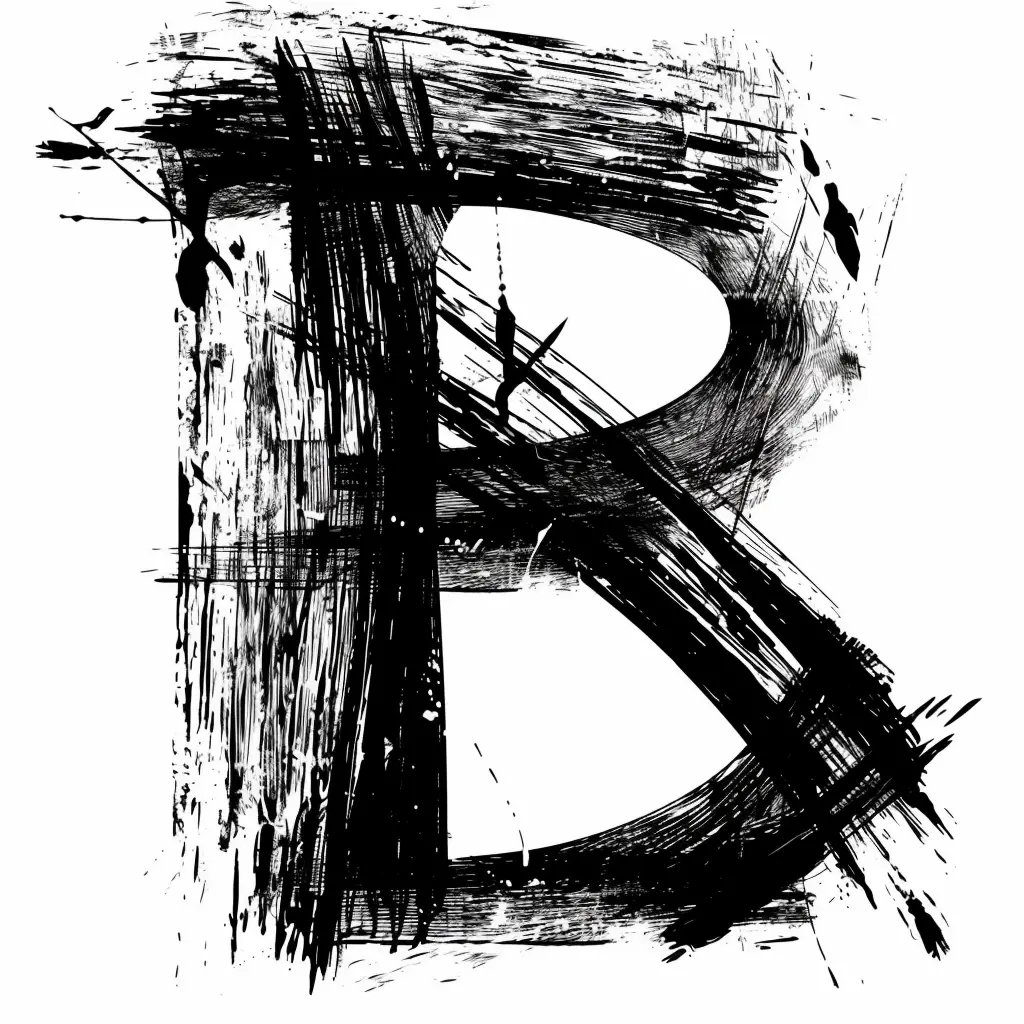
This image features a stylized, abstract representation of the letter "B," rendered in a bold, black-and-white artistic style. The letter is composed of rough, textured brushstrokes and layered lines, creating a dynamic, almost chaotic visual effect with splatters and irregular edges. The stark contrast between the black strokes and the white background emphasizes the letter’s form, while small silhouettes of birds add subtle, whimsical details to the composition.